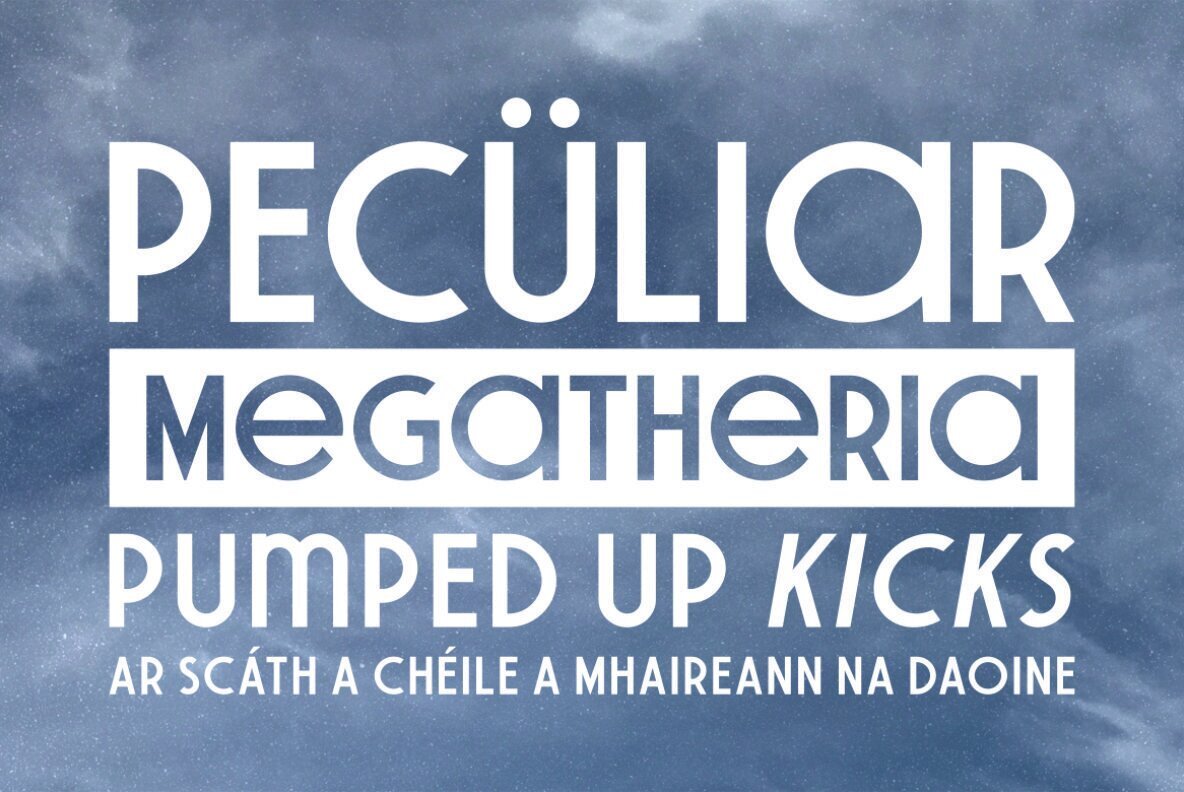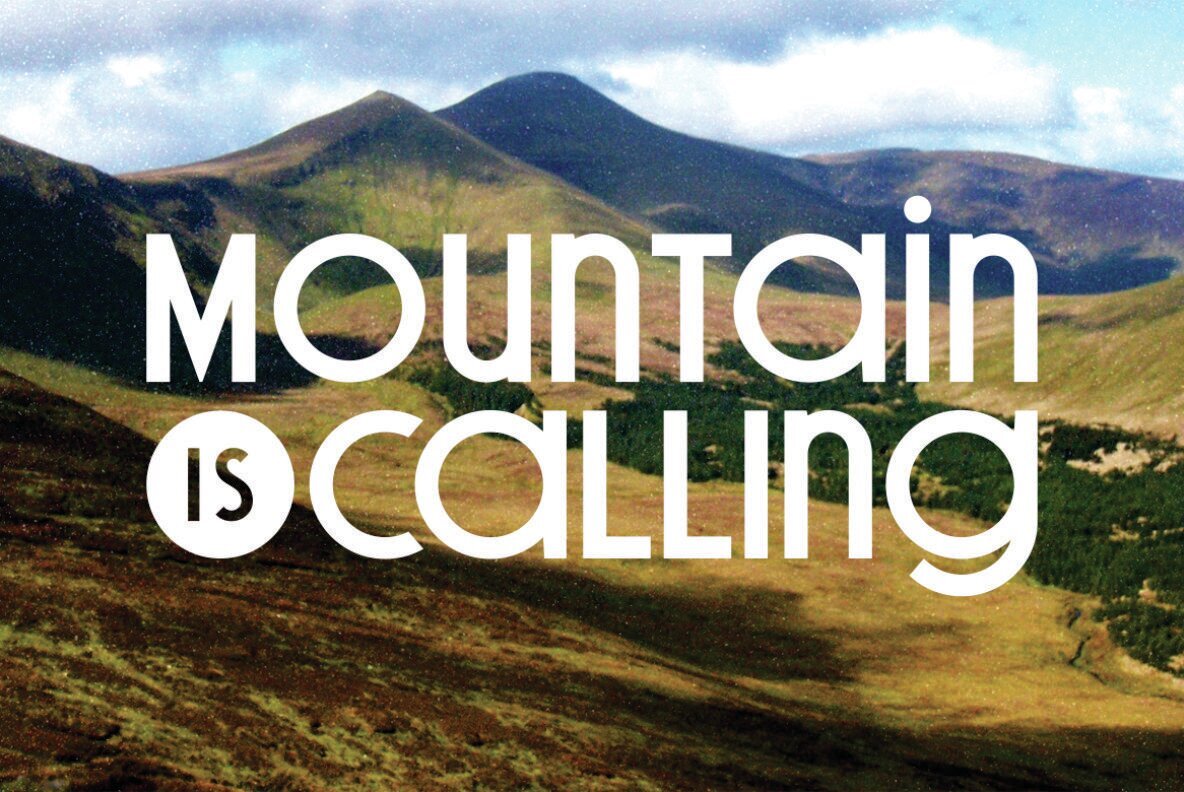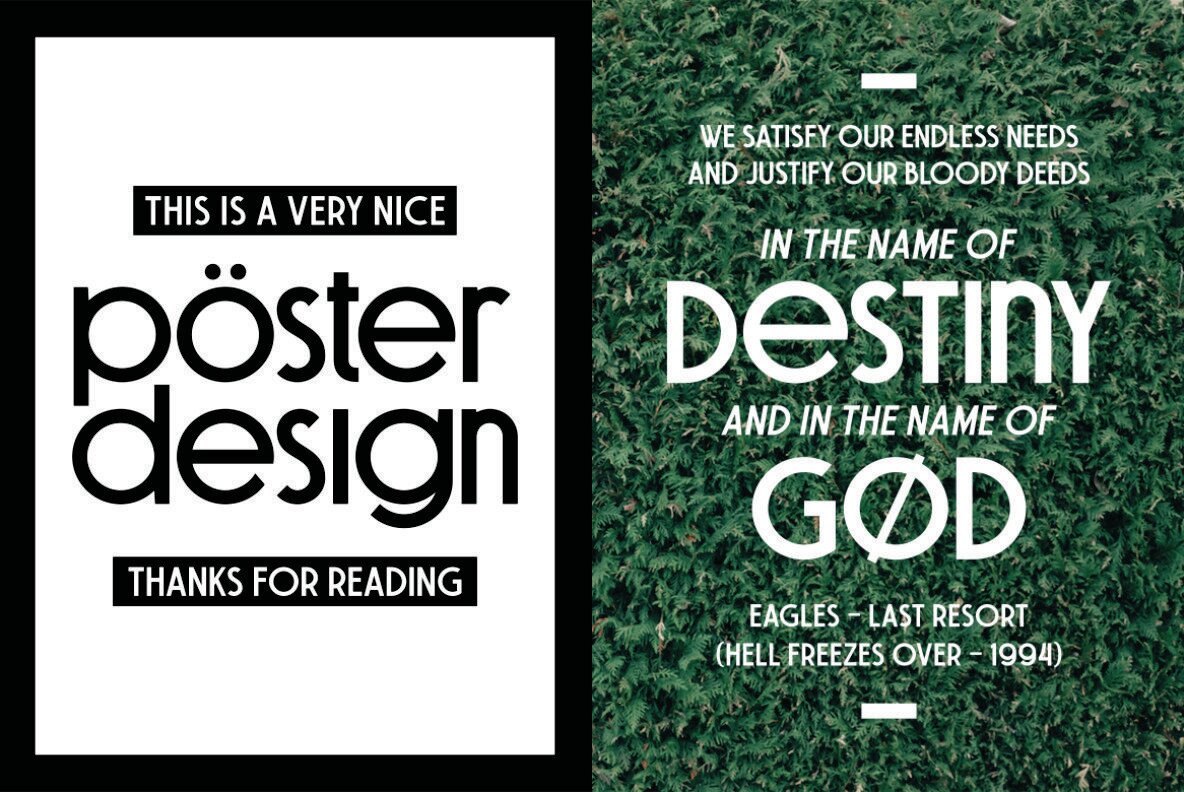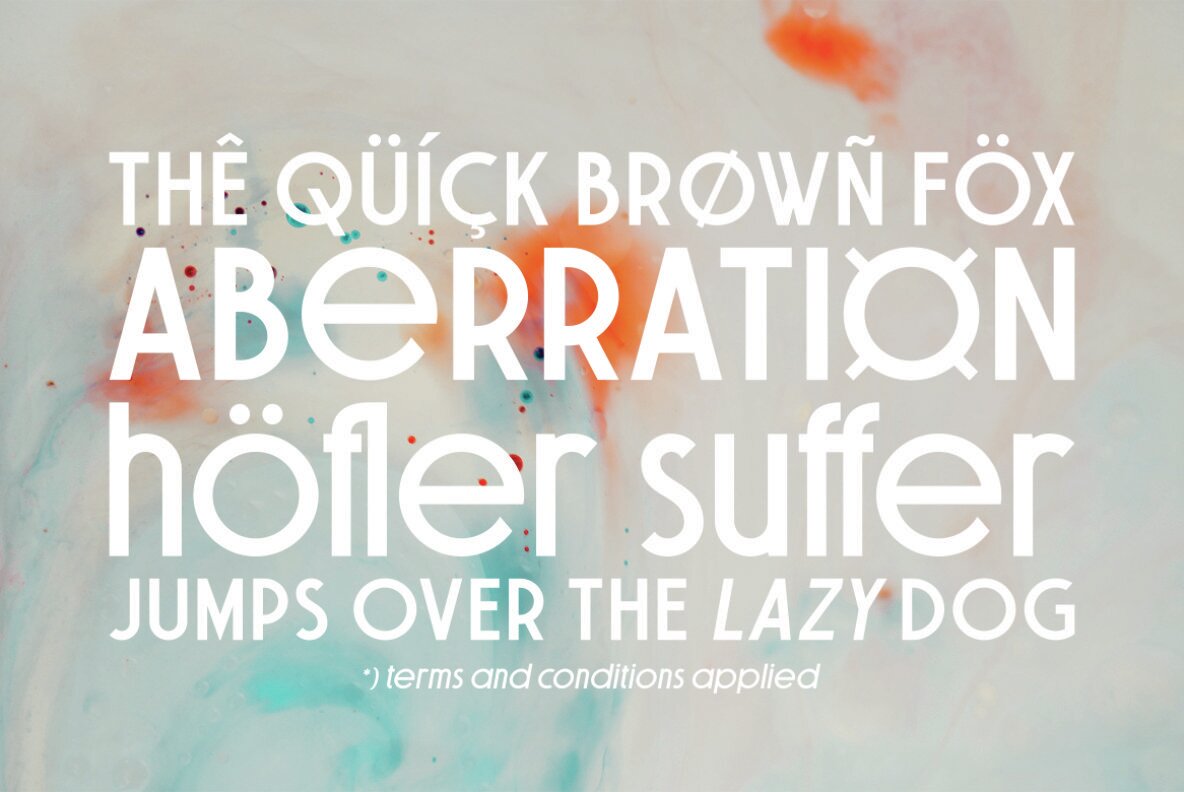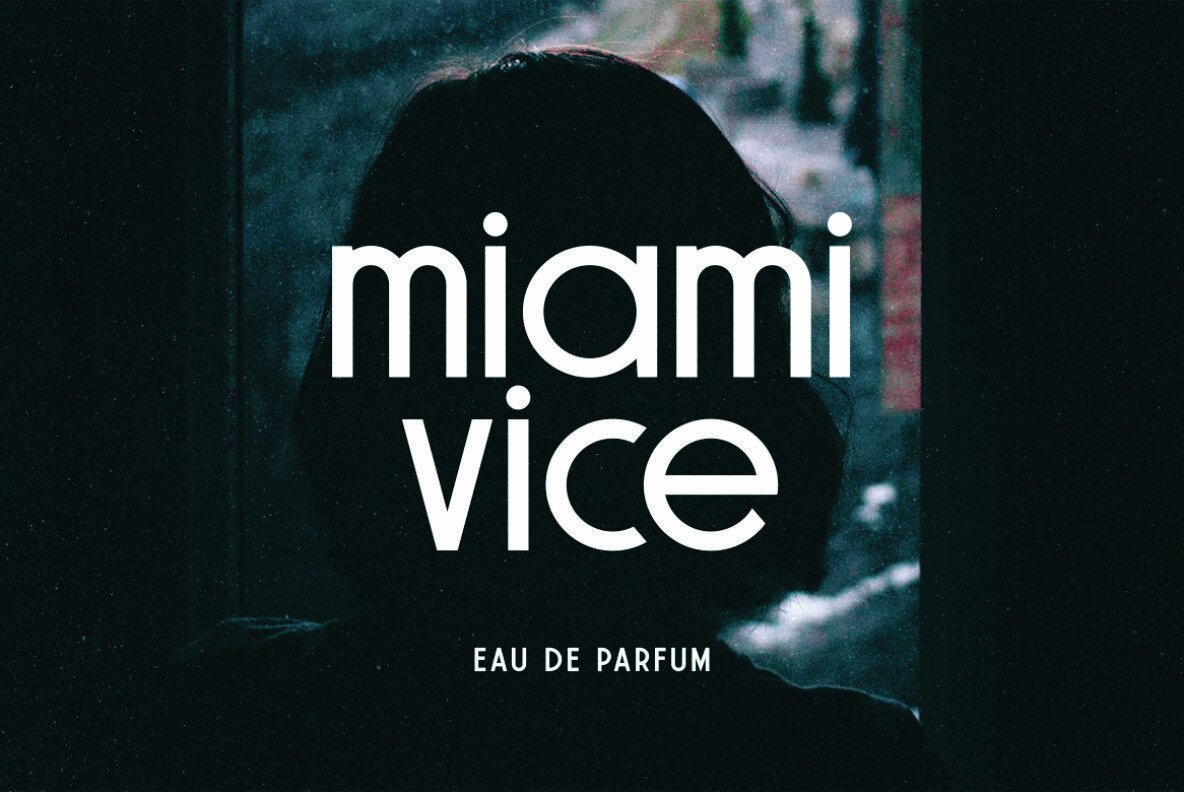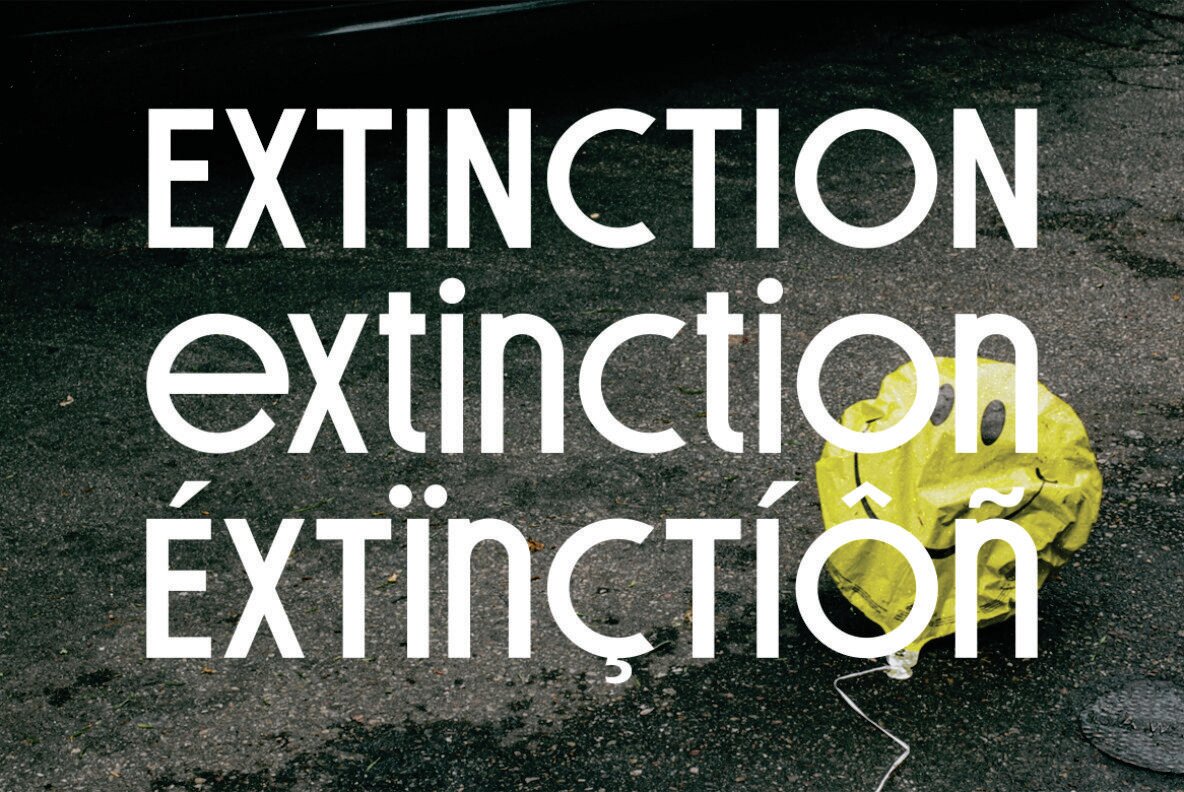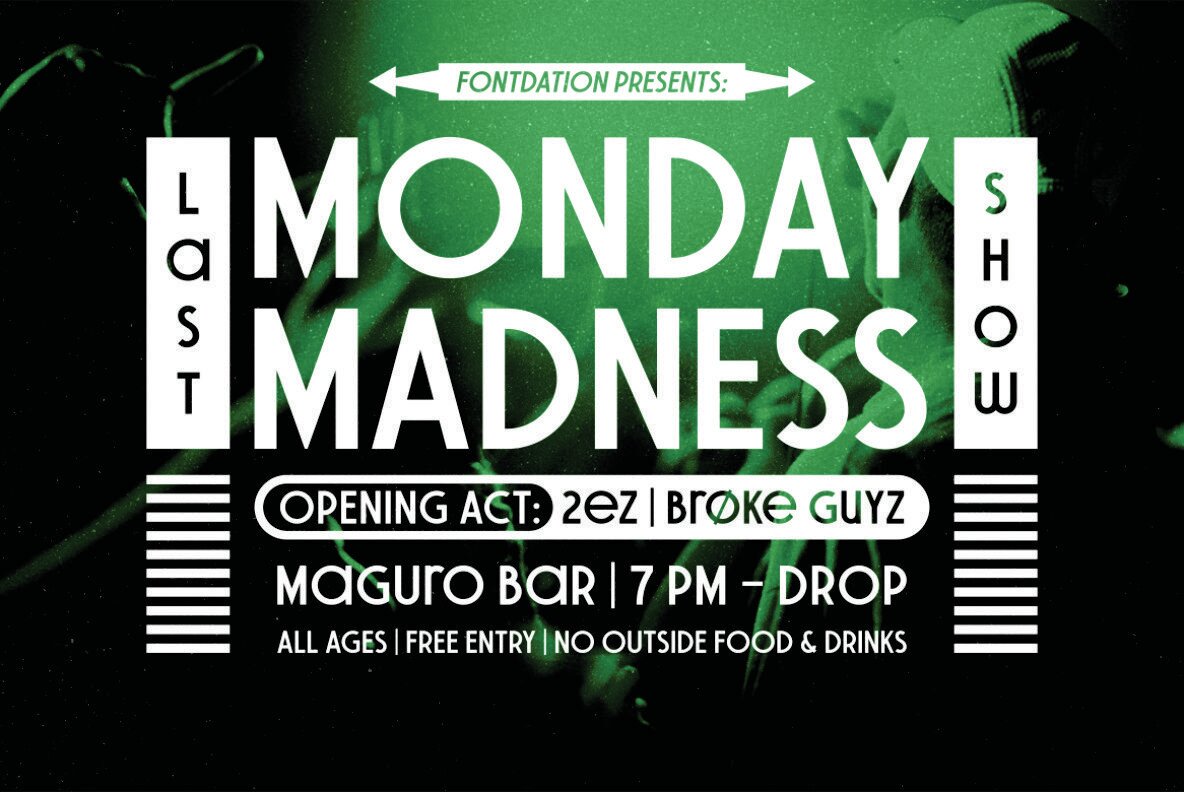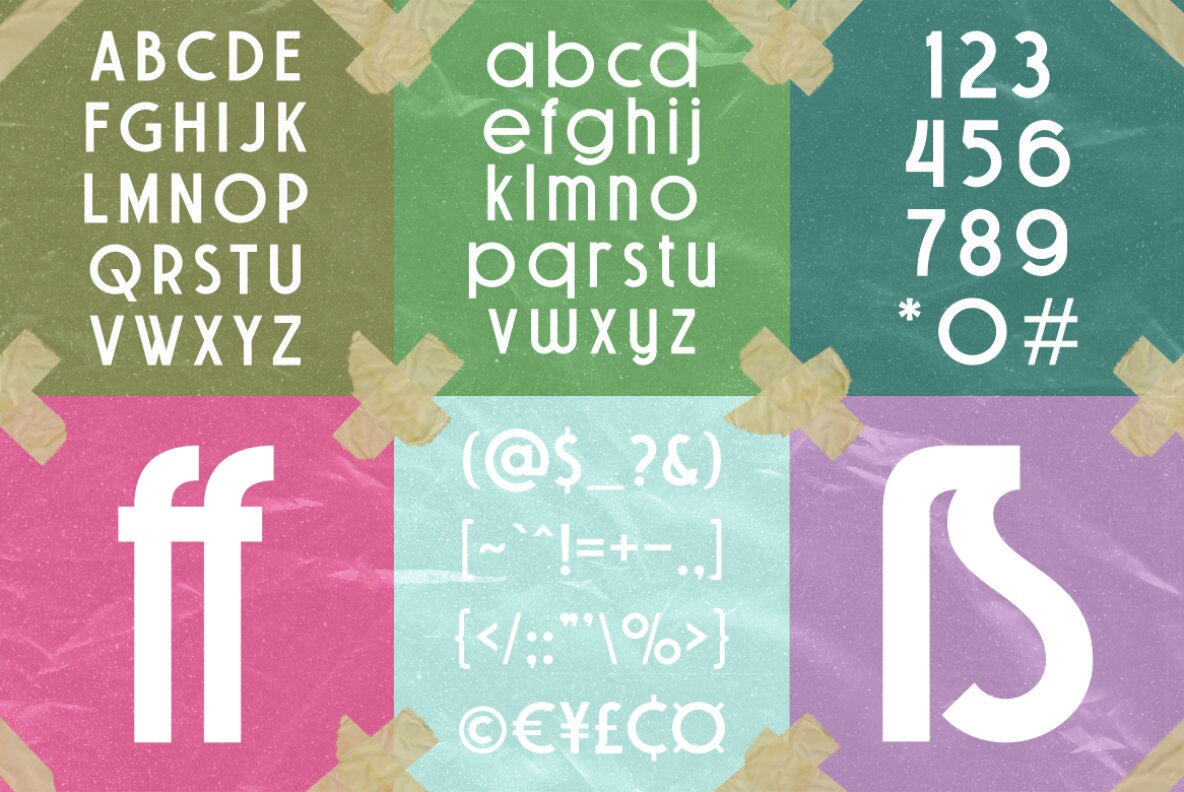
Offaly Font
Offaly by Fontdation is a unique geometric sans serif font characterized by its smooth and clean aesthetics. Designed to offer harmonic letter combinations, it excels in branding, headlines, and quote or poster design. Its distinct style allows for creative and versatile typography solutions.Offaly: Funky Geometric Sans Serif Font